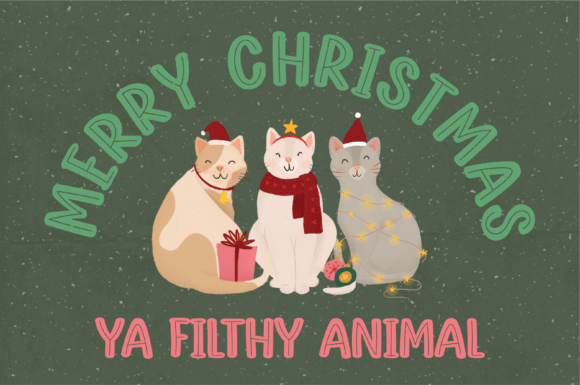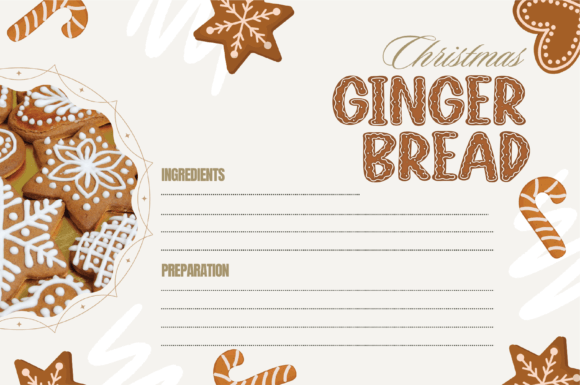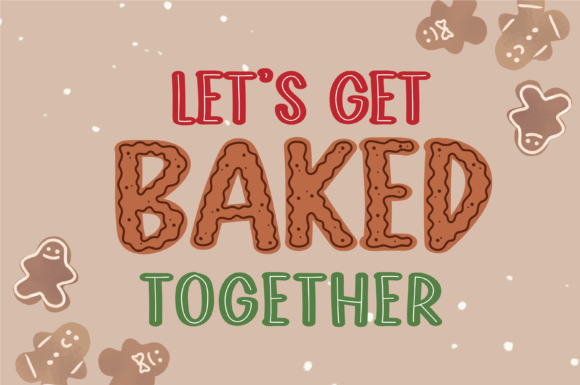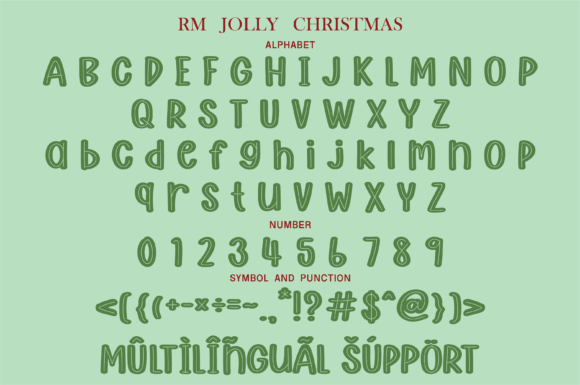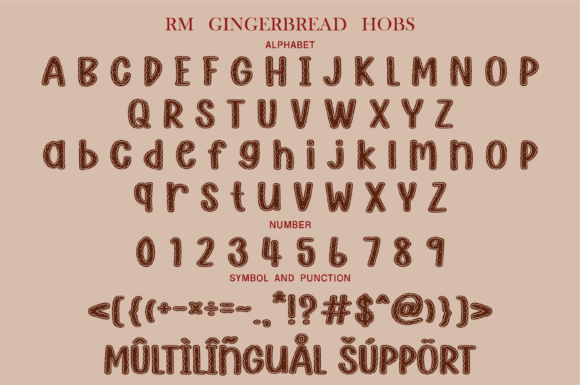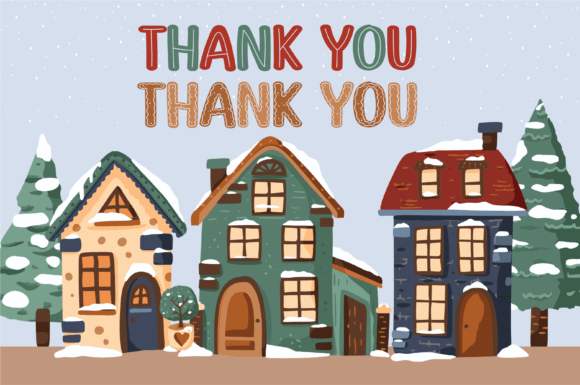
Introduction to Jolly Hobs Duo Font
As you sit surrounded by twinkling lights, the scent of pine and the sound of festive tunes, it’s hard not to get caught up in the magic of the holiday season. The creative spark is lit, and you can’t wait to bring your Christmas project to life. Whether it’s a card, a gift tag, or a mug, the right font can make all the difference. That’s where the Jolly Hobs Duo Font comes in – a delightful pack of Christmas fonts that will add a dash of cheer to any design.
With the Jolly Hobs Duo Font, you’ll have access to two high-quality fonts, Jolly Christmas and Gingerbread Hobs, perfect for creating a variety of Christmas projects. The fonts are available in both OTF and TTF formats, ensuring seamless integration with your design software. Plus, with support for Cricut and Silhouette, you can easily cut out intricate designs and bring your creations to life. Whether you’re a seasoned designer or a crafty enthusiast, this font pack is a valuable design resource that will elevate your projects and make them stand out.
Key Features of Jolly Hobs Duo Font
- Unique Duo Font Style: Jolly Hobs Duo Font offers a distinctive, playful design that combines two fonts in one, making it perfect for creative projects.
- High-Quality Design: This font is designed with high-quality graphics, ensuring crisp and clear text in various sizes and resolutions.
Honest Review: Jolly Hobs Duo Font
I recently had the chance to work with the Jolly Hobs Duo Font, and I must say, it’s a solid addition to any design resource collection. As a designer, I’m always on the lookout for high-quality fonts that can elevate my creative projects.
What works well with the Jolly Hobs Duo Font is its unique, playful vibe that can be used in a variety of contexts. The font’s transparent background makes it easy to use on any background color or image, giving designers more flexibility in their designs. I also appreciate that it’s available as a free download, making it accessible to designers of all levels.
- ✨ Unique and playful design
- ✨ Transparent background for easy use
However, I do have a few limitations to mention: the font’s legibility can be affected by the size and style of the text. In smaller sizes, the letters can become difficult to read. Additionally, the font may not be suitable for formal or professional designs, as its playful nature may not be taken seriously.
Overall, I think the Jolly Hobs Duo Font is a great design resource for creative projects that require a lighthearted touch. While it may not be perfect, its strengths outweigh its limitations, making it a worthwhile addition to any designer’s toolkit.
- ⚠️ Legibility issues in smaller sizes
- ⚠️ Not suitable for formal designs